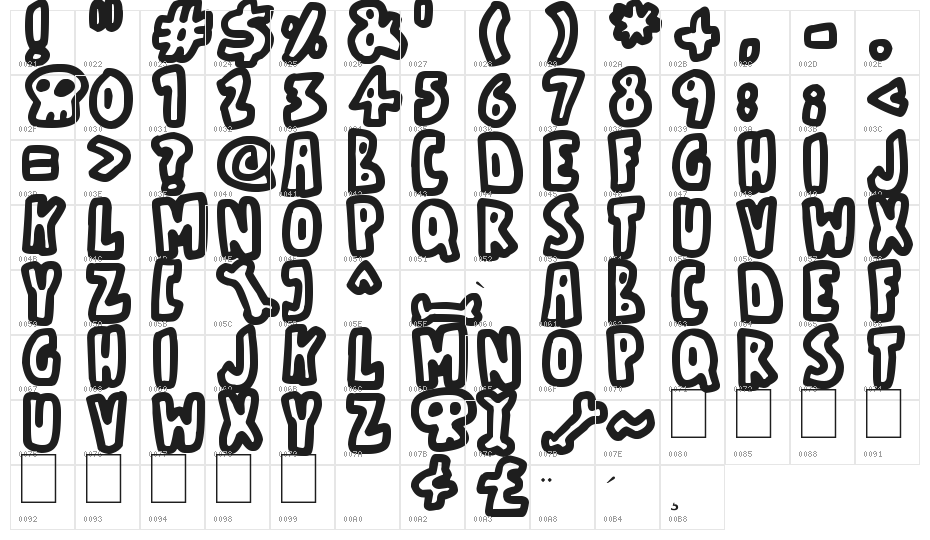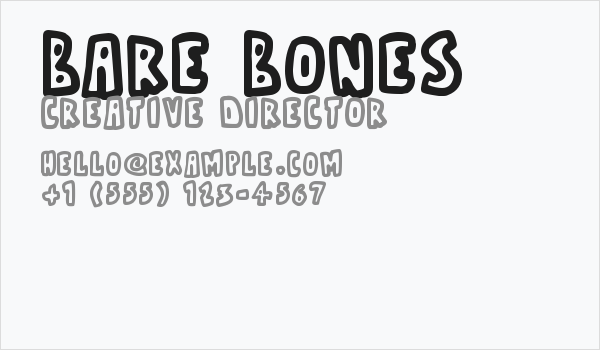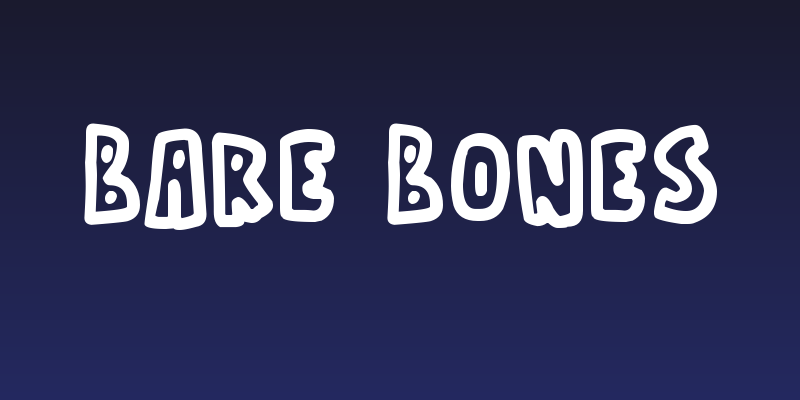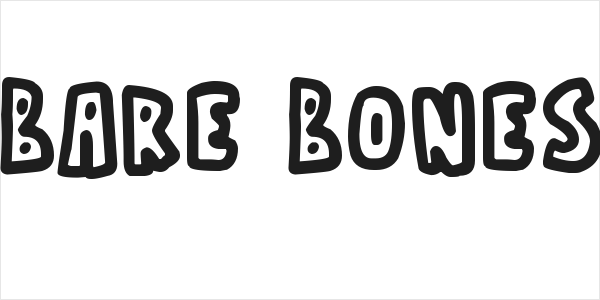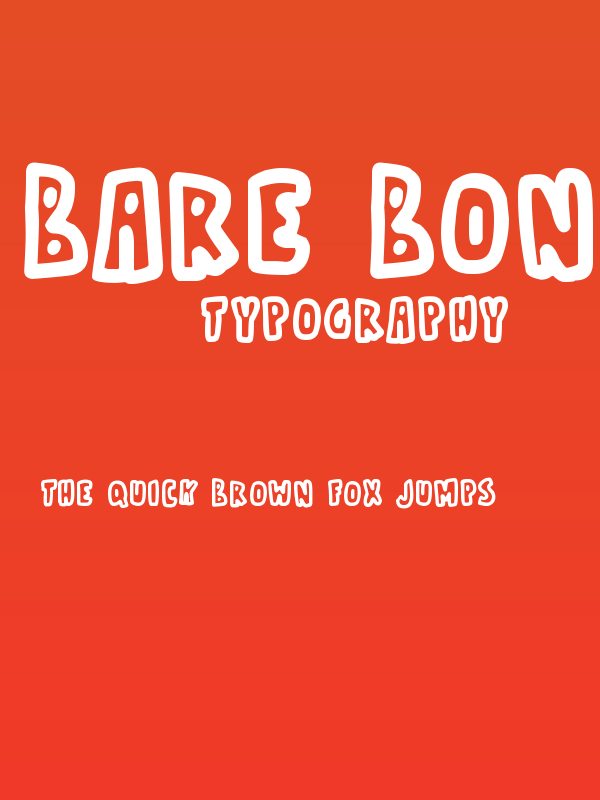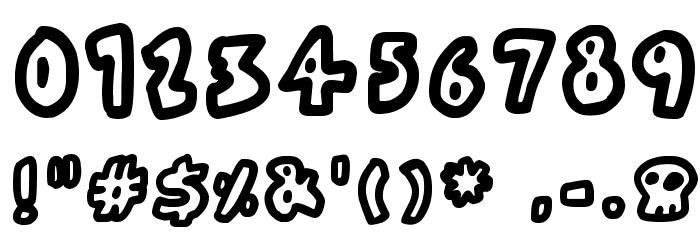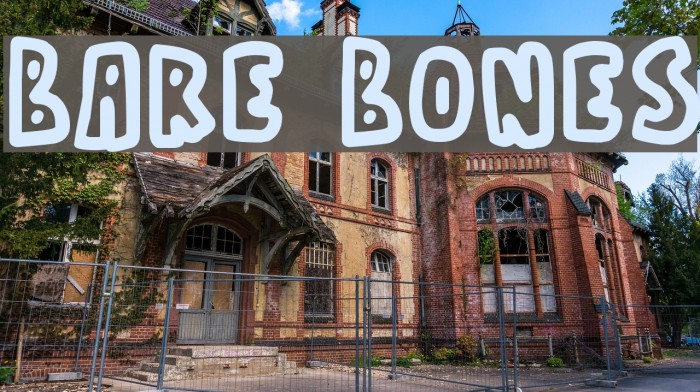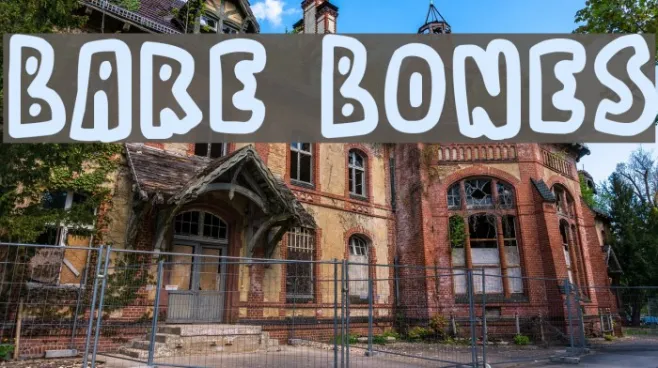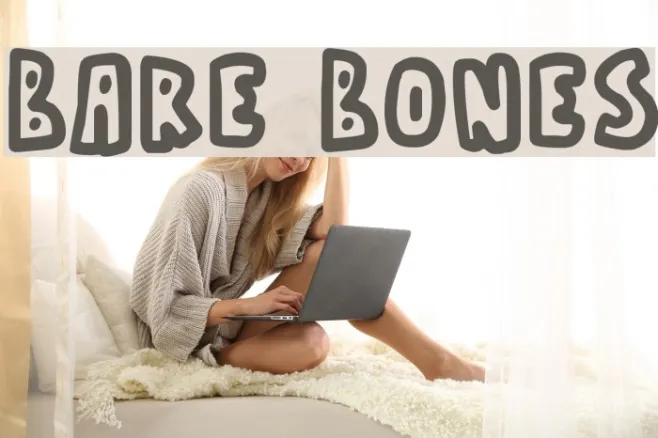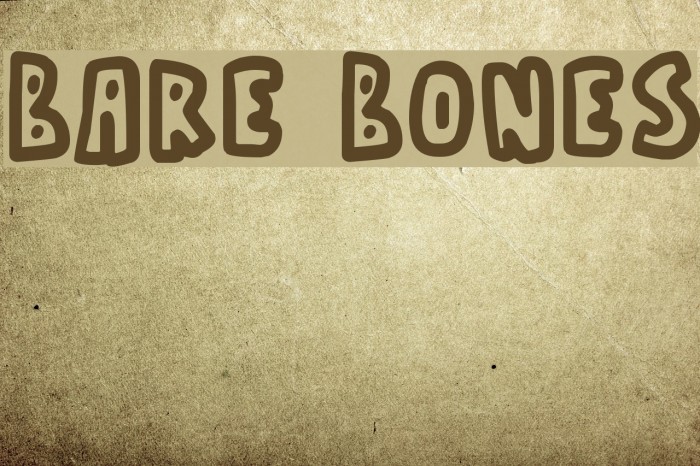
Bare Bones Font
✎ Comic
Bare Bones Description
This font features a playful and bold style with thick, rounded outlines that give each character a cartoonish and informal appearance. The letters are slightly irregular, adding to the whimsical and fun aesthetic. The uppercase and lowercase letters maintain a consistent style, with exaggerated curves and a hand-drawn feel. The numbers and special characters follow the same design principles, ensuring a cohesive look across all glyphs. This font is ideal for projects that require a lighthearted and approachable tone, such as children's books, comic strips, or playful branding.
| Overall Style | Playful, Cartoonish, Informal |
| Proposed Projects | Ideal for children's books, comic strips, playful branding, and informal invitations. |